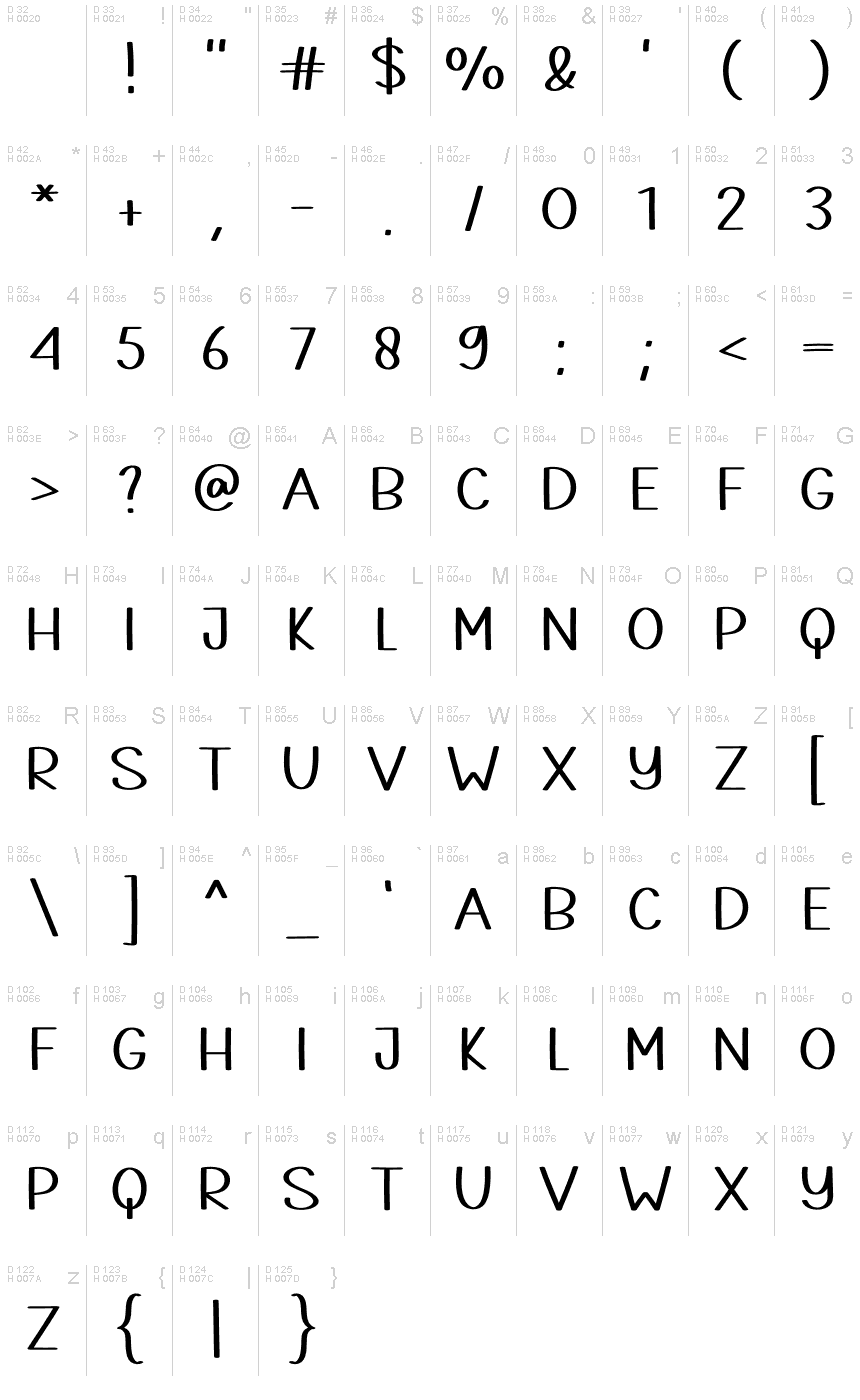
Company
Company, a semi-light handwritten font designed by Scratchones, is the perfect choice for projects seeking a unique and personal touch. With its block letter style and all caps feature, this font exudes boldness and professionalism.
Ideal for branding and logo designs, Company can add a modern yet timeless elegance to your business identity. Its legibility makes it suitable for various print materials like brochures or invitations. Whether you're designing a magazine layout or creating eye-catching social media graphics, Company will effortlessly captivate your audience with its authentic charm.